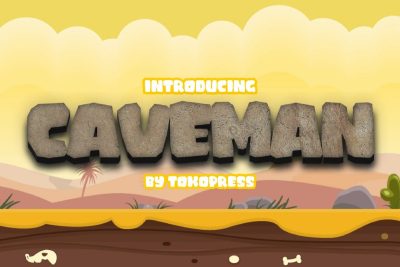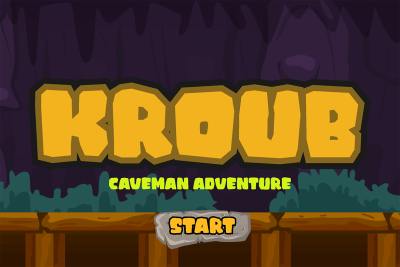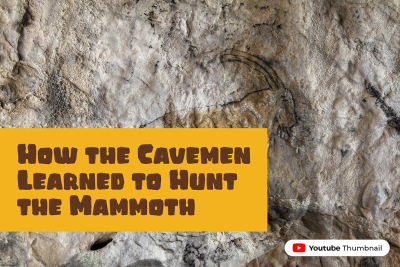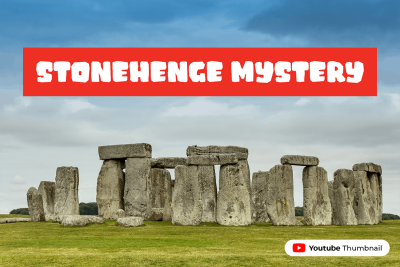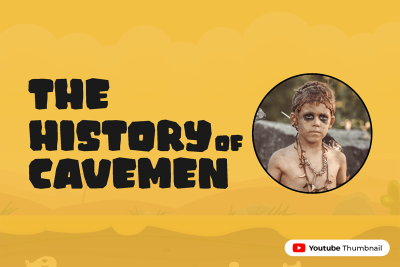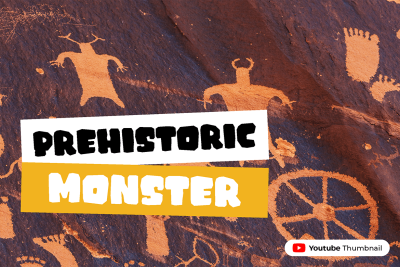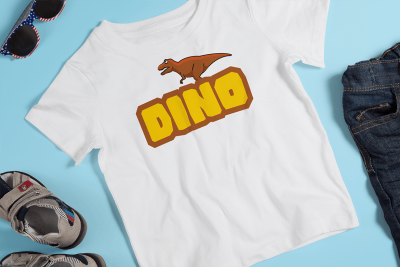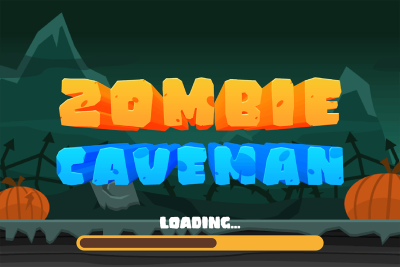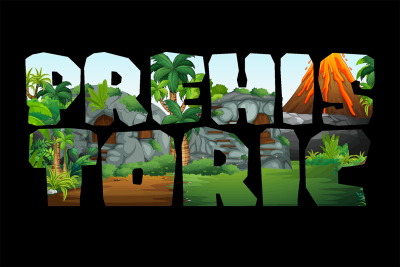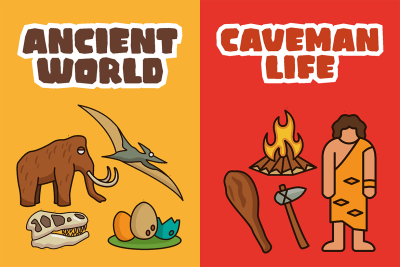
Gaming font Caveman brings a rugged, prehistoric charm to your projects, making it the perfect choice for designs inspired by the Stone Age. With its textured, rocky look, this typeface stands out in game titles, logos, and thematic artwork. It is designed to capture the spirit of ancient adventures while remaining versatile enough for modern design needs.
Whether youโre working on gaming interfaces, fantasy-themed marketing, or fun childrenโs illustrations, Caveman adapts seamlessly to any context. The bold, uneven edges of the letters evoke natural stone carvings, creating an authentic prehistoric feel. Additionally, its strong visual impact ensures that your designs will grab attention and leave a lasting impression.
Not only is this font bold and striking, but it is also highly legible, making it ideal for both large headlines and smaller text elements. Its rugged personality makes it especially well-suited for adventure-themed games, tribal branding, or educational materials about early civilizations. With Caveman, you can bring a touch of history and excitement to your creative projects.
Tailored for Gaming and Prehistoric Content
Caveman gaming font is more than just visually appealingโit is a tool for storytelling. Its unique design helps convey a sense of exploration and raw adventure, making it perfect for prehistoric-themed games or graphics. Whether you’re designing a survival game UI, a Stone Age animation poster, or a caveman-themed birthday card, this font ensures that your project stands out.
Furthermore, the fontโs rough and textured appearance lends itself well to a variety of creative contexts. For instance, it pairs beautifully with earthy tones, hand-drawn elements, or rustic illustrations. Its versatility means it can transition smoothly from game design to branding projects and beyond.
In addition to its aesthetic appeal, Caveman offers excellent readability. The bold and sturdy letterforms ensure that your message remains clear, even when used in complex layouts or on smaller screens. By choosing this font, you enhance your designs with a distinct and adventurous personality that connects with your audience.
Why Choose Caveman Font?
Selecting the right font is crucial for creating impactful designs. Caveman stands out with its boldness, textured style, and prehistoric charm. This makes it a fantastic choice for designers working on gaming content, educational projects, or branding with a tribal or natural theme.
Moreover, Caveman adapts well to both digital and print formats, making it a versatile asset for any project. Whether youโre developing immersive games, designing promotional materials, or creating unique merchandise, this font delivers the perfect balance of creativity and functionality. Its rugged design not only captures attention but also adds depth and character to your work.
With Gaming Font Caveman, you can transport your audience back to the Stone Age while maintaining modern design sensibilities. Itโs time to elevate your projects with this bold, adventurous typeface that makes a statement wherever itโs used.